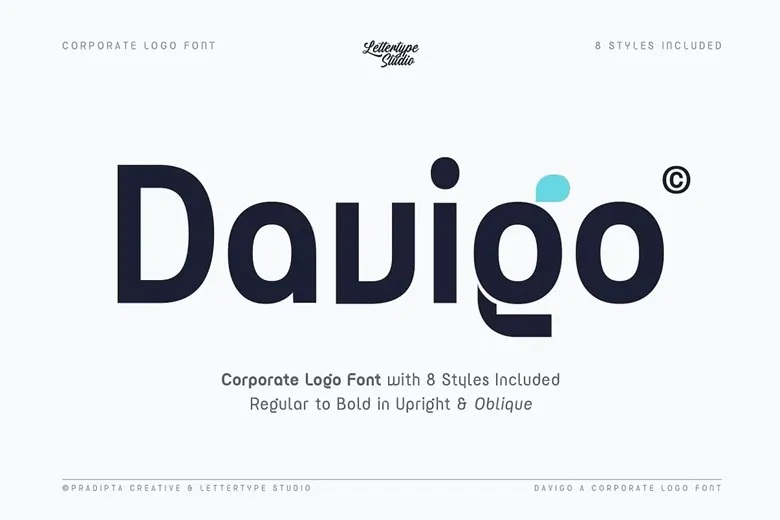
Davigo Font
Davigo is a new, multi-purpose geometric sans-serif logo font ideal for corporate and editorial projects. Inspired by the contemporary business and branding worldwide, Davigo has precise alignment, balanced letterforms and smooth curves that also make it readable and iconic. It’s designed for best high-impact headlines, strong branding, pitch decks, logo types, web UI and much.
Davigo Sans Serif Font